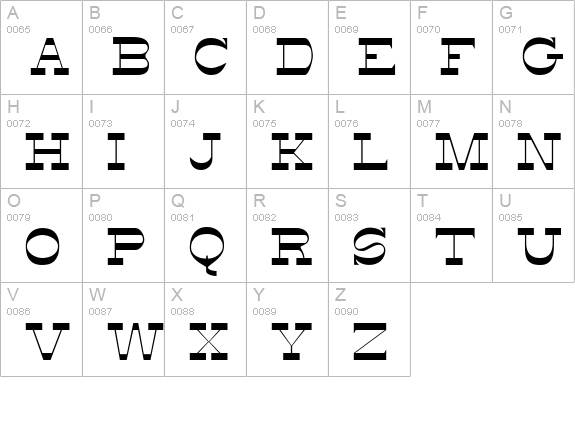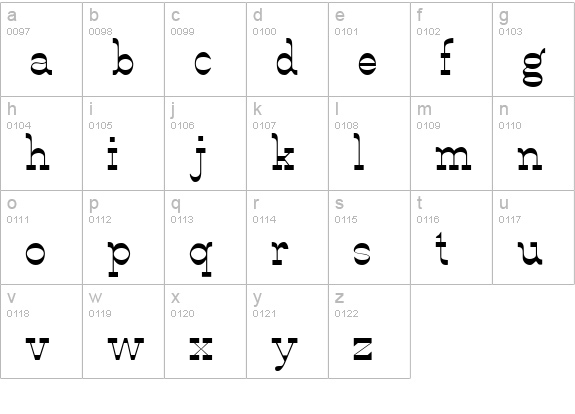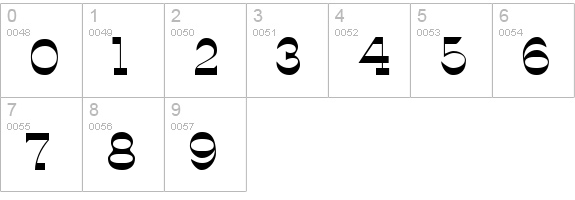
Alfredo's Dance Font Details
Alfredo's Dance font is a beautifully crafted typeface that exudes elegance and sophistication. With its graceful curves and stylish flourishes, this font is perfect for adding a touch of class to any design project. Whether you're creating wedding invitations, branding materials, or social media graphics, Alfredo's Dance font will surely make a statement. What's even better is that Alfredo's Dance font is available for free! Yes, you read that right - this stunning font can be downloaded at FontsMarket.com without any cost. So go ahead and elevate your designs with the timeless charm of Alfredo's Dance font.